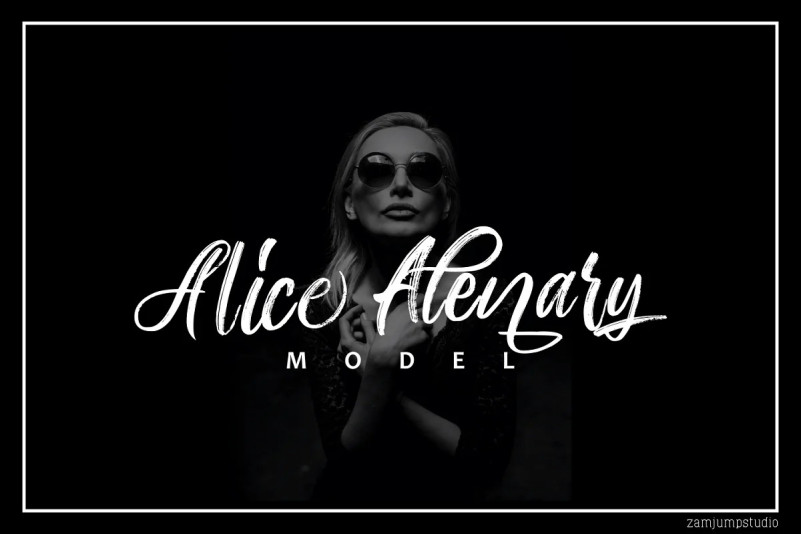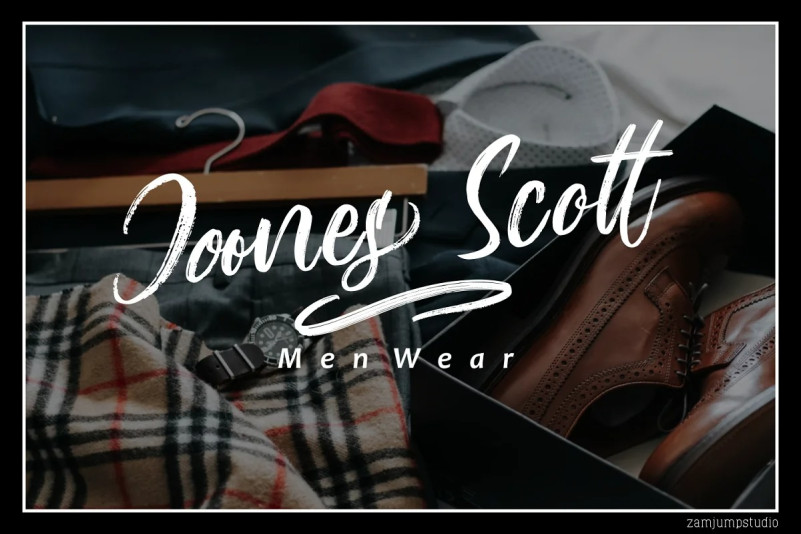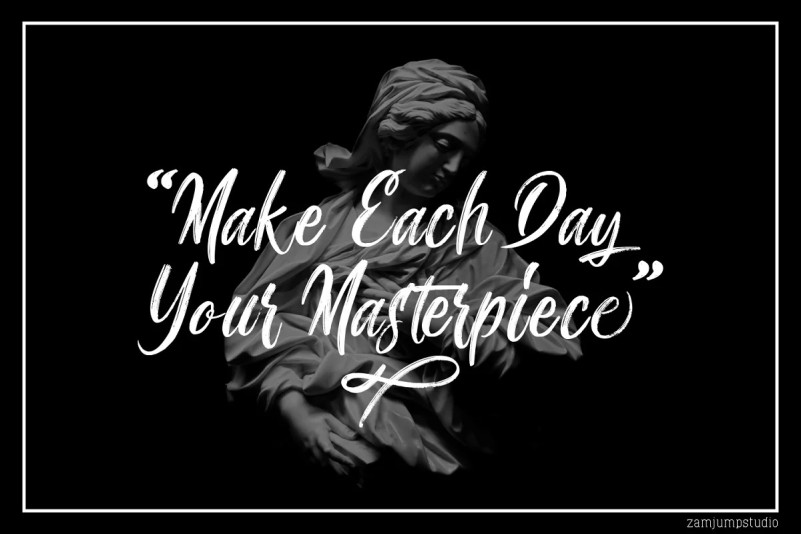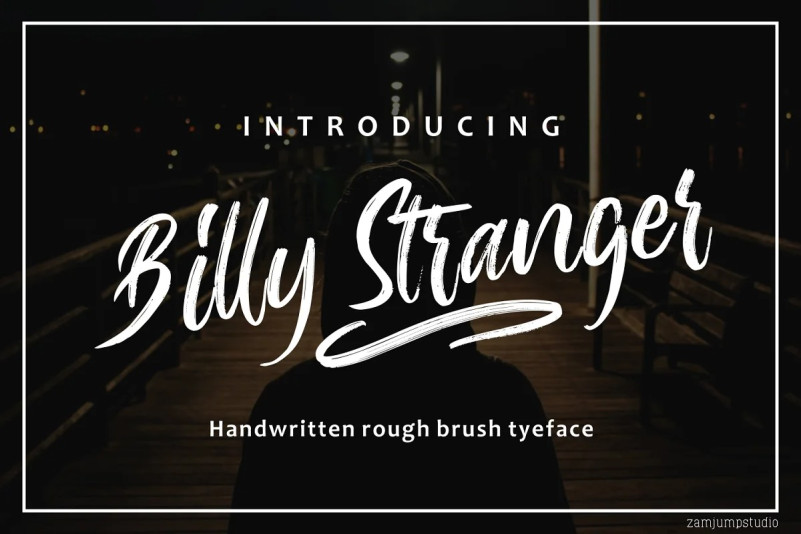
Billy Stranger Brush Font is modern hand-drawn brush font that combines attractive curves with a fresh urban edge. Made from font designer named zamjumps-studio. Billy Stranger handwritten typeface with a personal charm and classy style, With quick dry strokes and a signature style, Billy Stranger is perfect for branding projects, homeware designs, product packaging – or simply as a stylish text overlay to any background image like quote images.